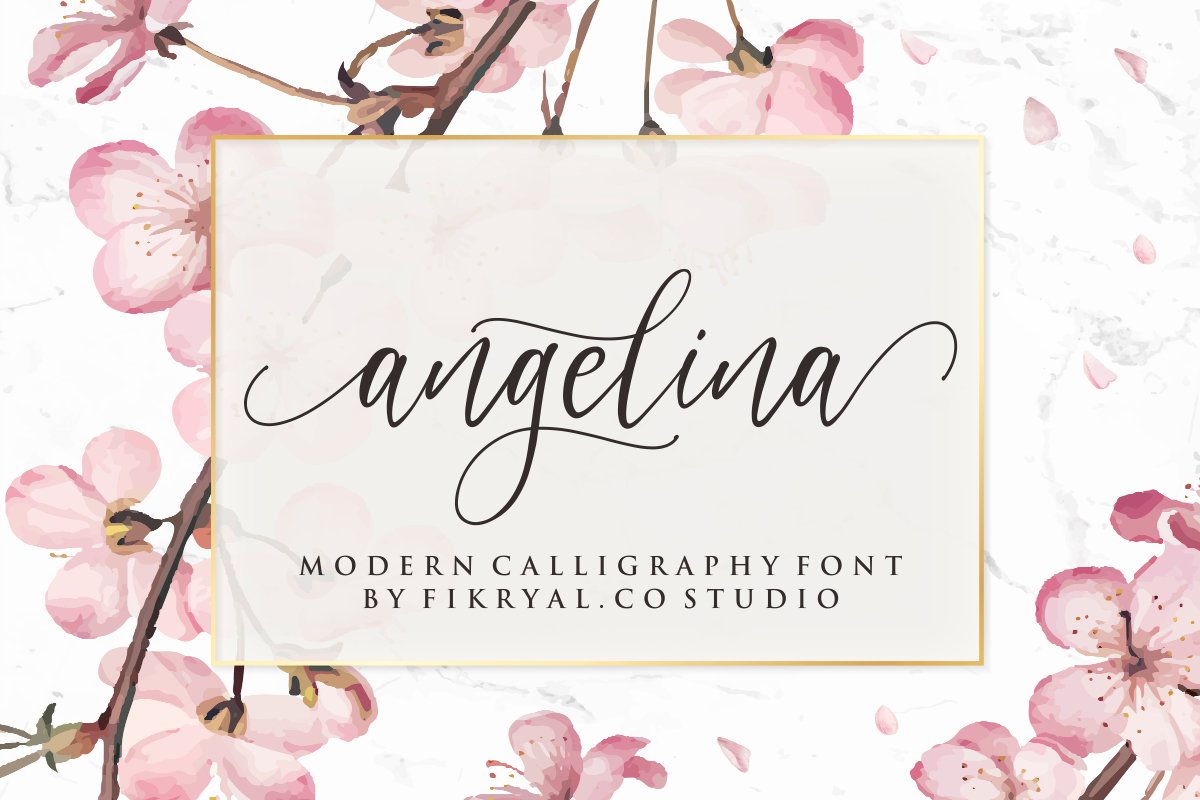
angelina - modern calligraphy font
angelina
angelina - Font  is a new modern & stylish handwritten font.
I'ts
Perfect for logo,branding, invitation, tittle, wedding designs, social
media posts, advertisements, product packaging, product designs, label,
photography, watermark, special event,magazine,web design,etc.What's
• stylistic alternate 1
• stylistic alternate 2
• swash
• numeral & symbols